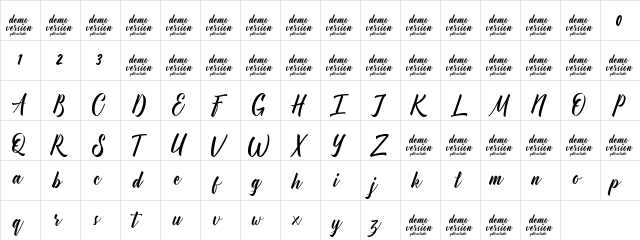
Manhattan Typeface Demo Regular
| Foundry | YdhraStudio |
| Designer | Yudha Rahmat Ageng |
Design Context for Manhattan Typeface Demo Typeface
Manhattan Typeface Demo is a composed and adaptable typeface that performs quietly and consistently across a wide range of design contexts.